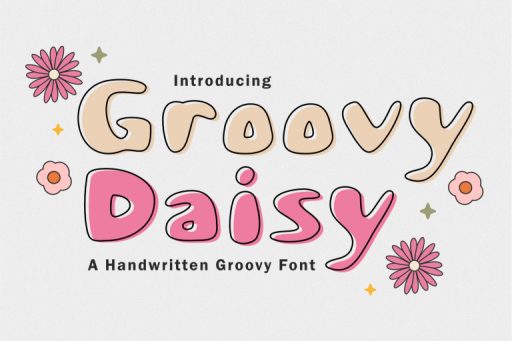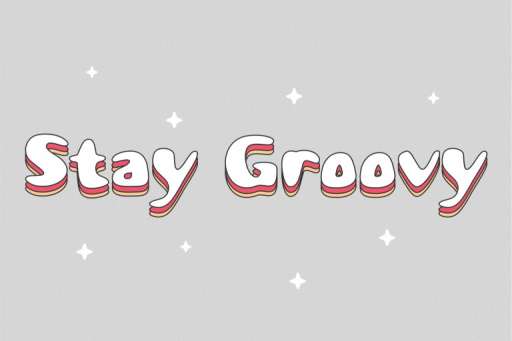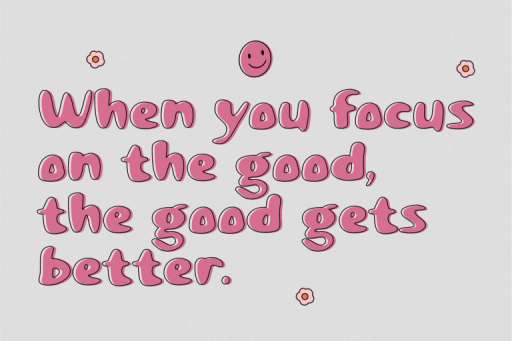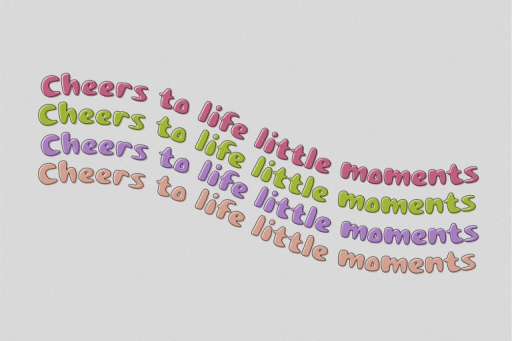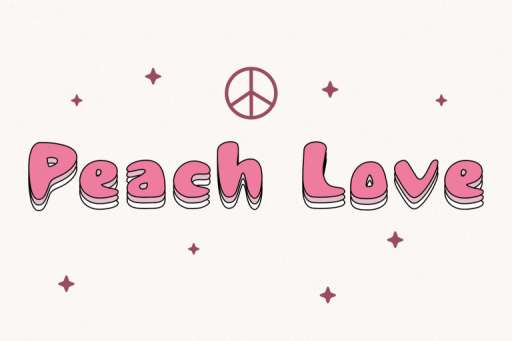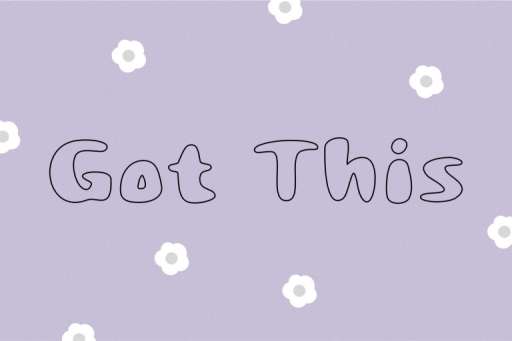
Groovy Daisy Font - Retro Branding Font From Jimtype Studio
Groovy Daisy Font
Groovy Daisy Outline Font
Groovy Daisy – Retro Groovy Font from Jimtype Studio
Groovy Daisy has a super fun and playful retro-styled font. Really fun typeface for any vintage theme concept, Illustration posters, stickers, fun graphics, retro, logos, quotes, invitations, blog posts, and more. The font includes two styles of typeface solid and outline!